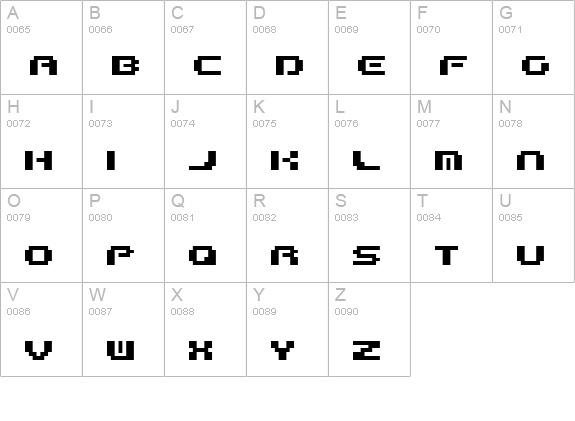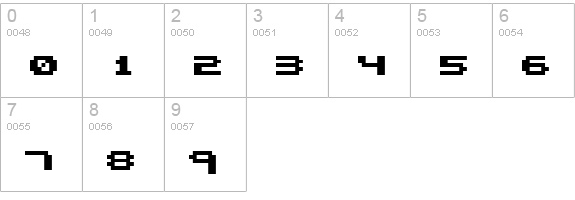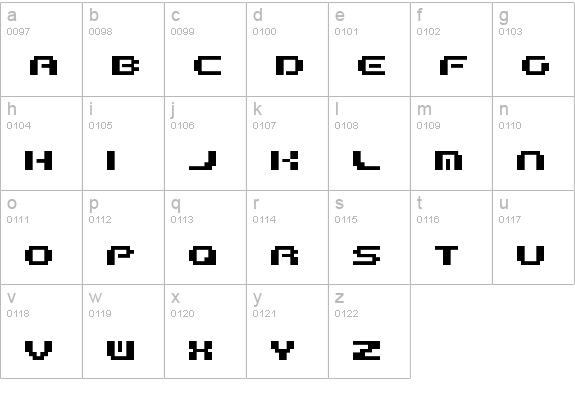
Formula too complex Font Details
Introducing the captivating and intricate Formula Too Complex font, a stunning typeface that exudes sophistication and modernity. Its intricate design features a harmonious blend of sleek lines and geometric shapes, making it perfect for projects that require a touch of elegance and complexity. This unique font is not only visually striking but also highly versatile, suitable for various design applications such as branding, editorial design, and more. With its attention-grabbing presence, Formula Too Complex font is sure to make a lasting impression on your audience. Best of all, Formula Too Complex font is available for free download at FontsMarket.com, allowing you to add this exceptional typeface to your collection without any cost. Don't miss out on the opportunity to elevate your designs with this stunning font today!